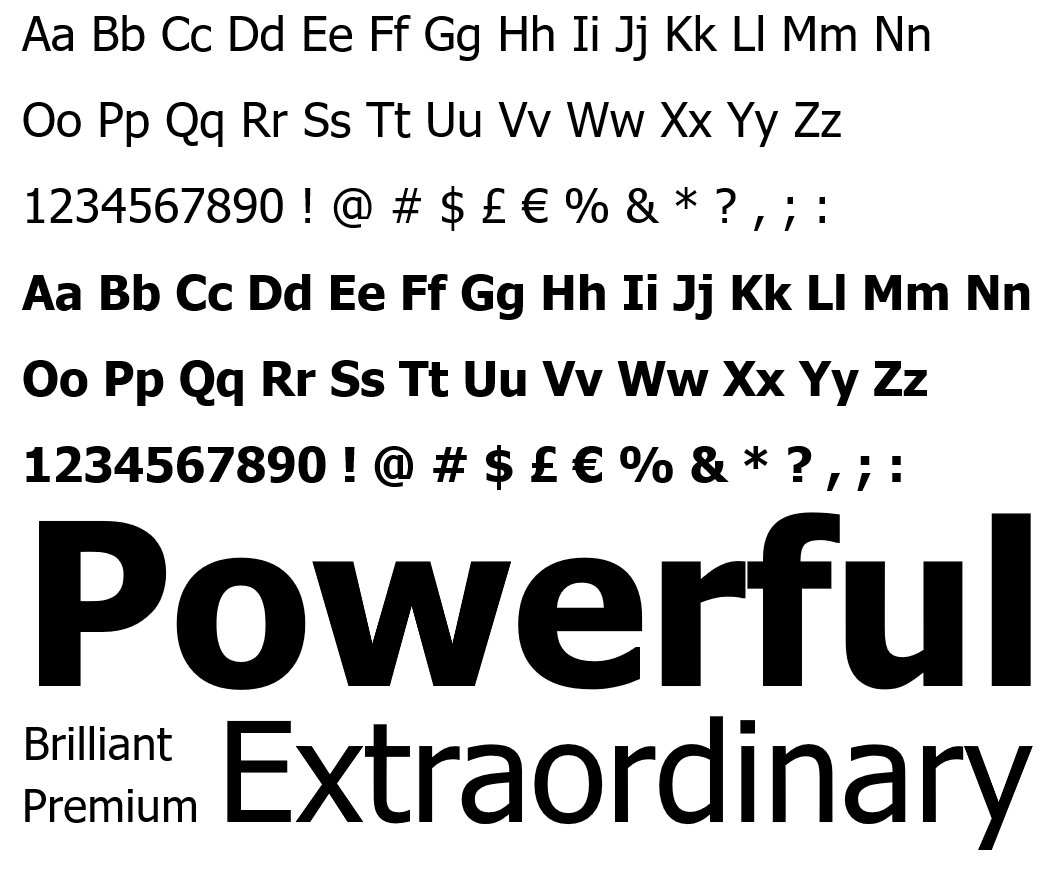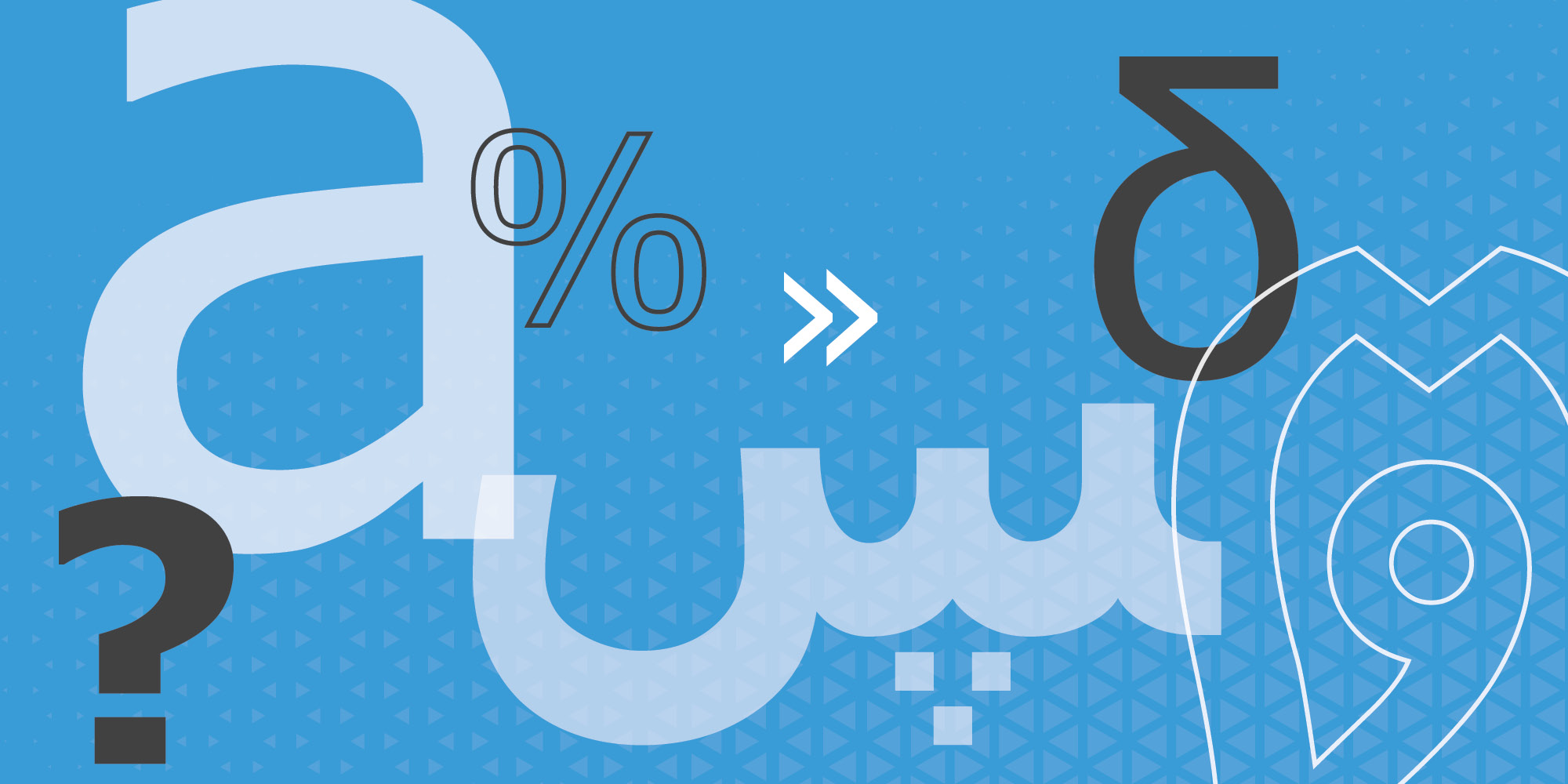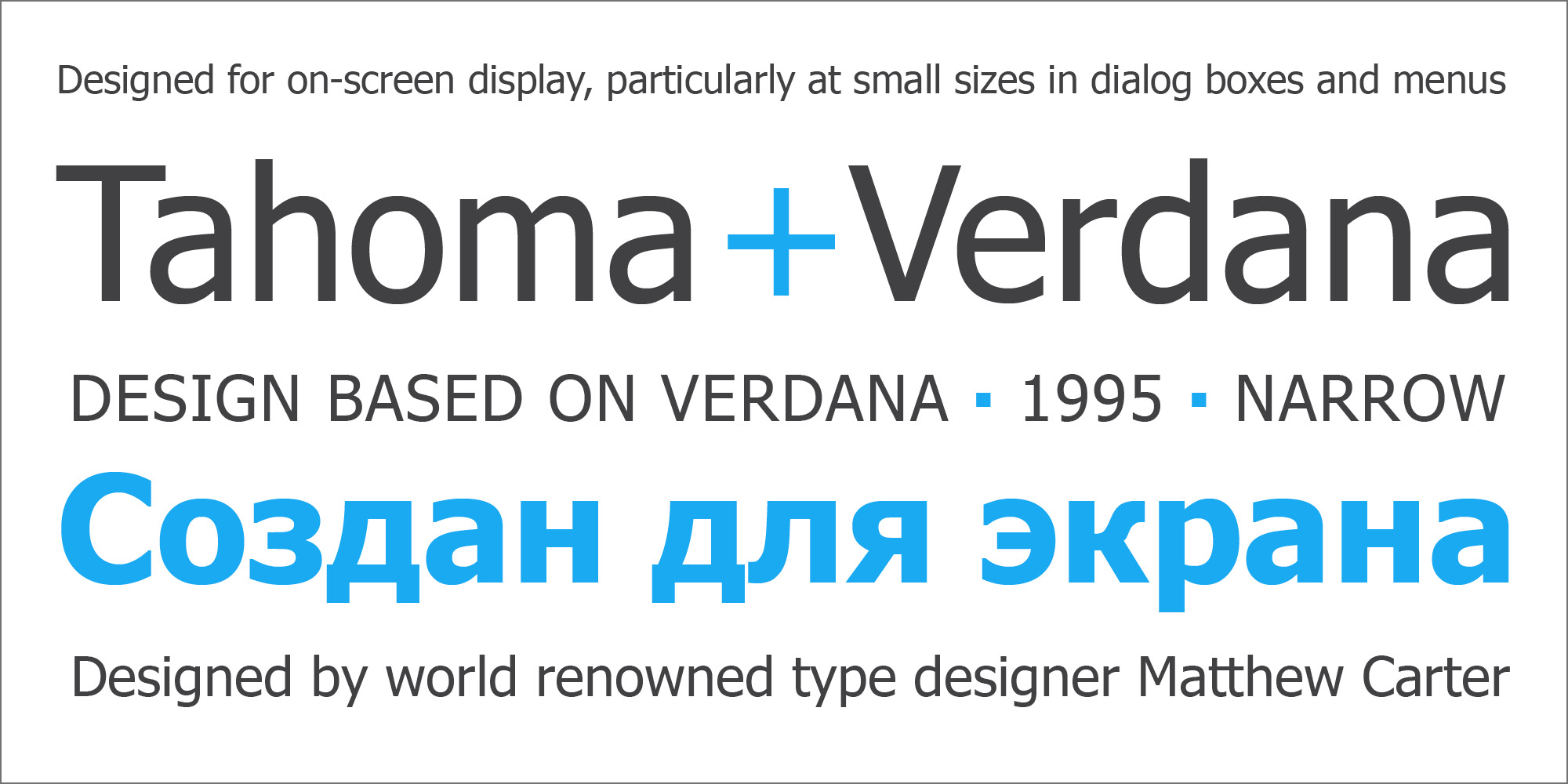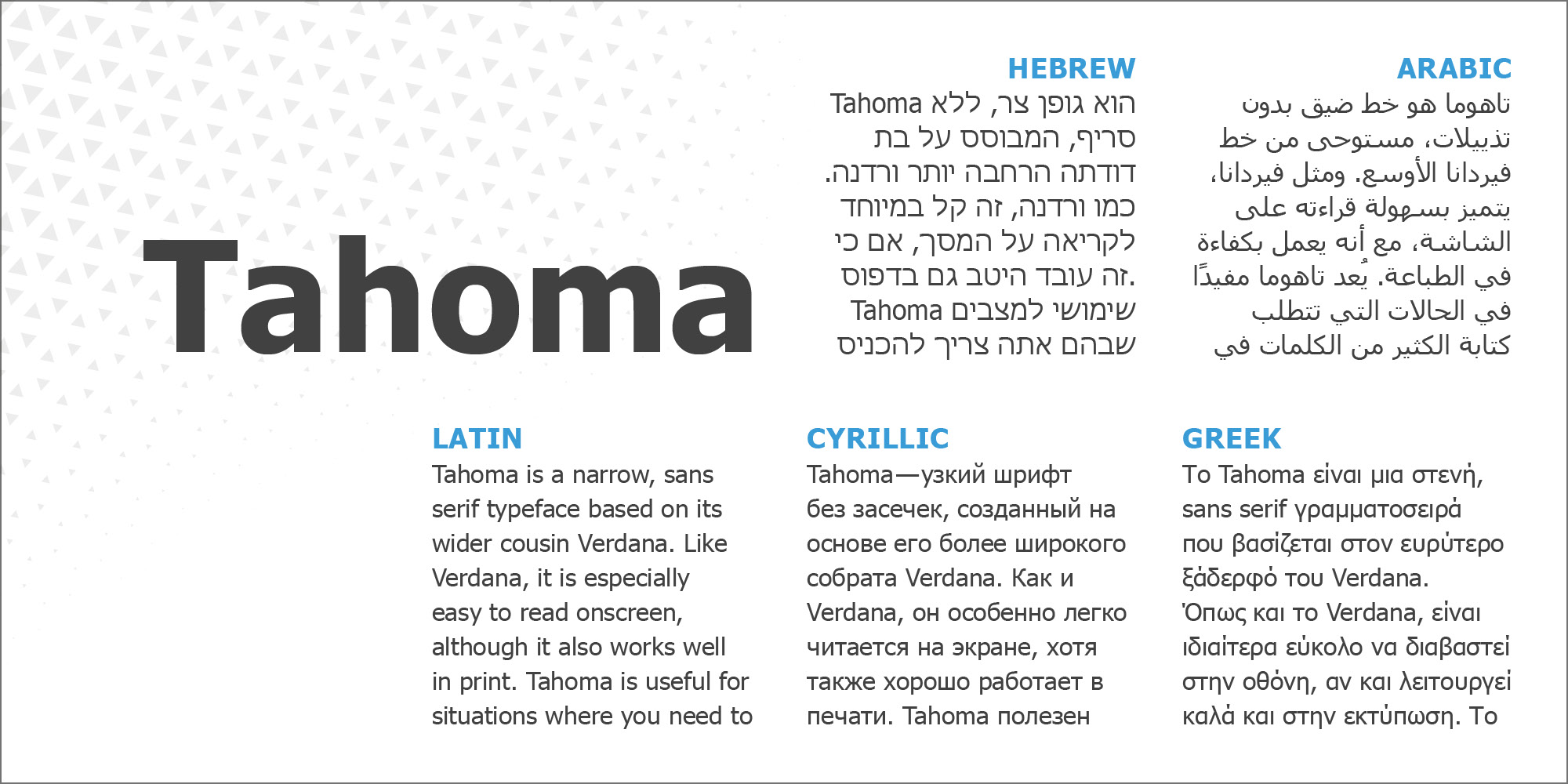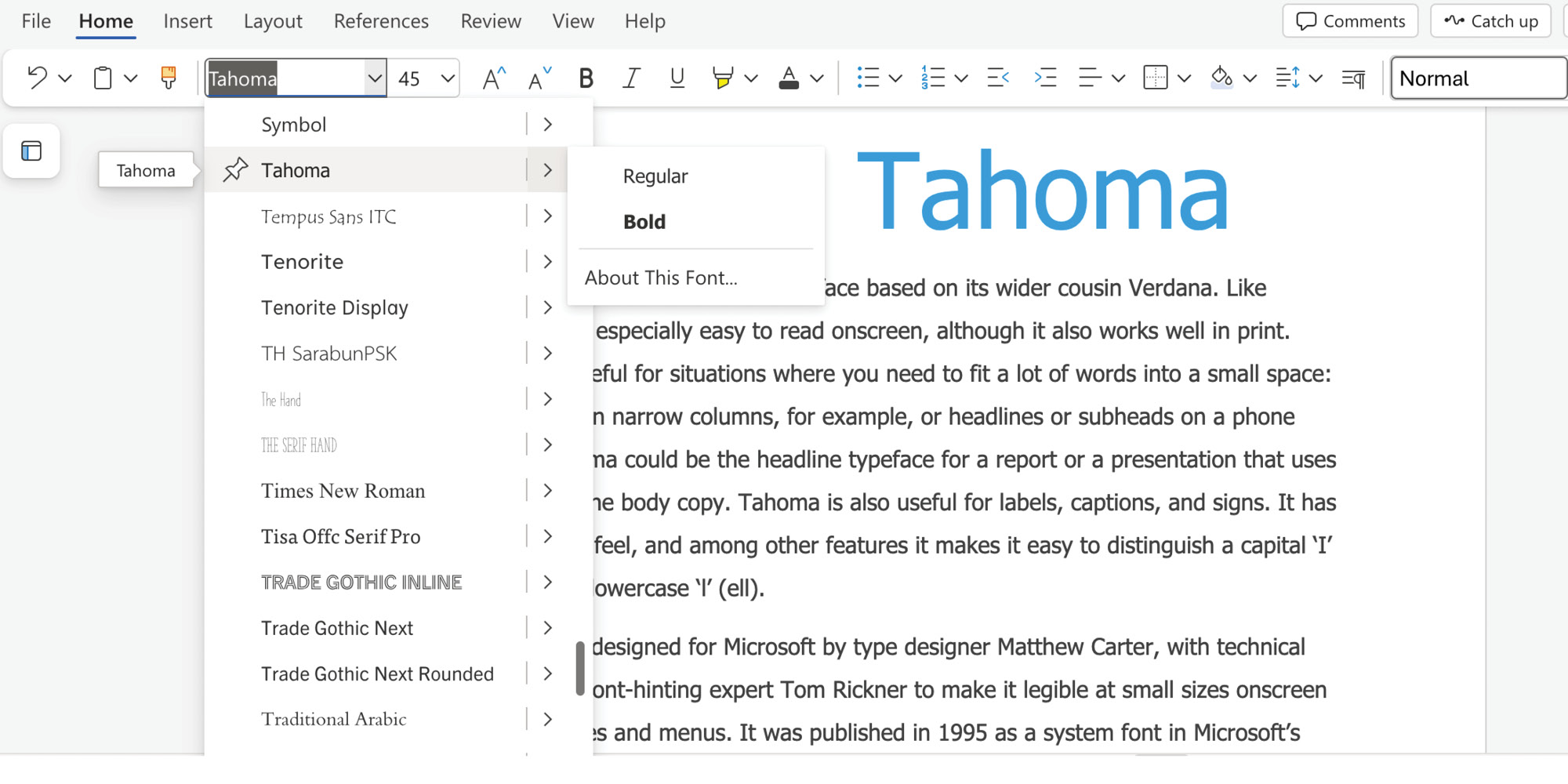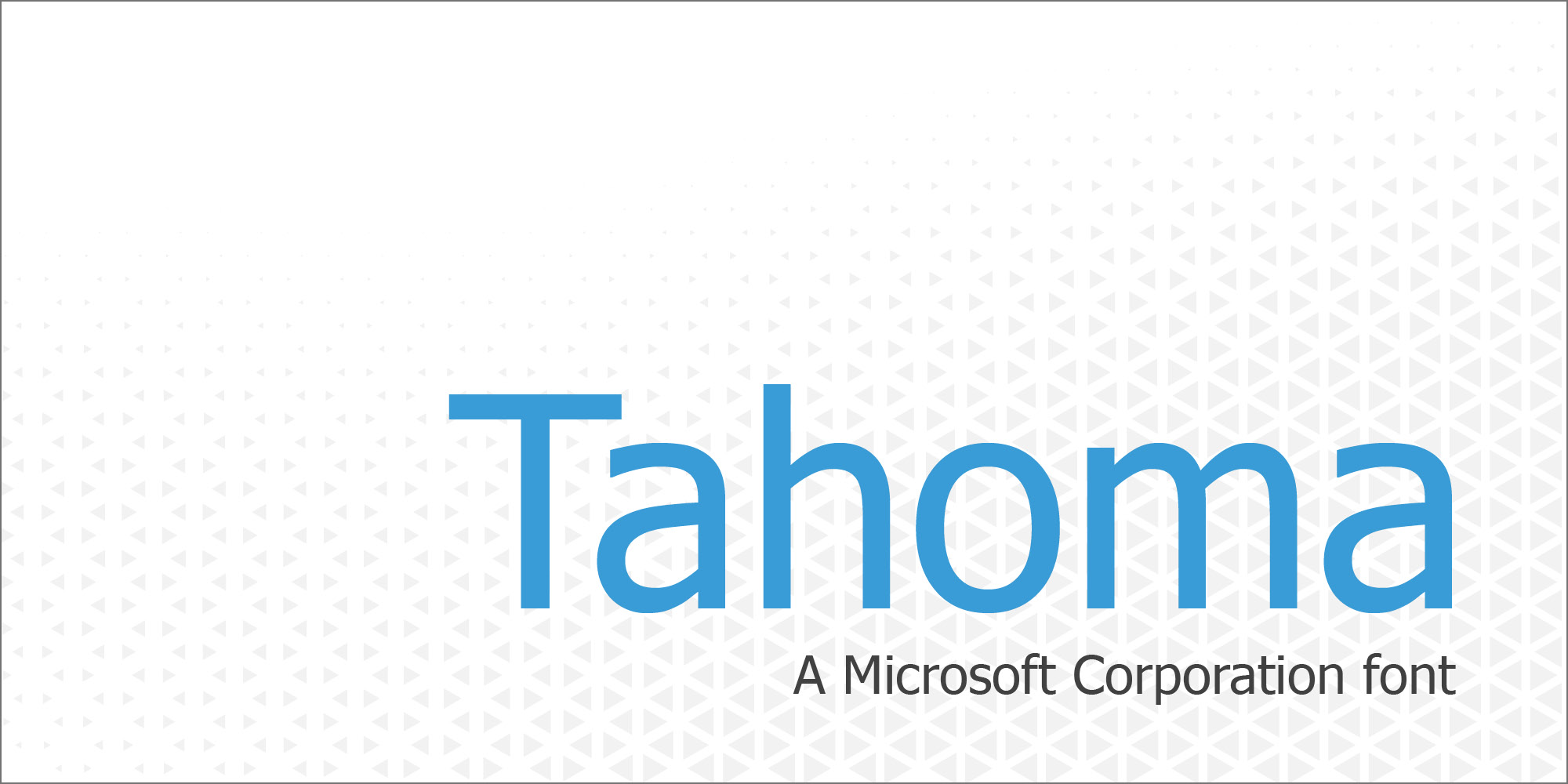
Font information Tahoma is a narrow, sans serif typeface based on its wider cousin Verdana. Like Verdana, it is especially easy to read onscreen, although it also works well in print. Tahoma is useful for situations where you need to fit a lot of words into a small space: a newsletter in narrow columns, for example, or headlines or subheads on a phone screen. Tahoma could be the headline typeface for a report or a presentation that uses Verdana for the body copy. Tahoma is also useful for labels, captions, and signs. It has a clear, open feel, and among other features it makes it easy to distinguish a capital ‘I' (eye) from a lowercase ‘l' (ell).
| Styles & Weights | Tahoma Tahoma Bold |
| Designers | Matthew Carter |
| Font vendor | Microsoft Corp. |